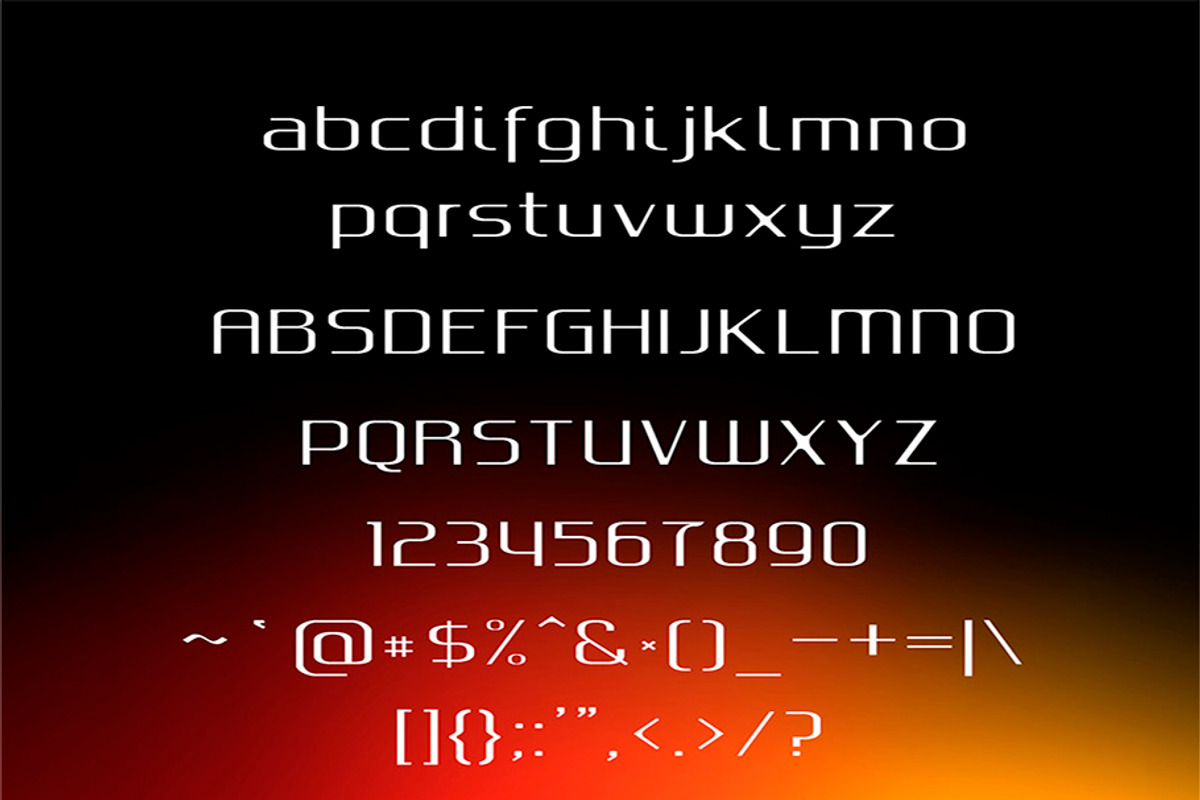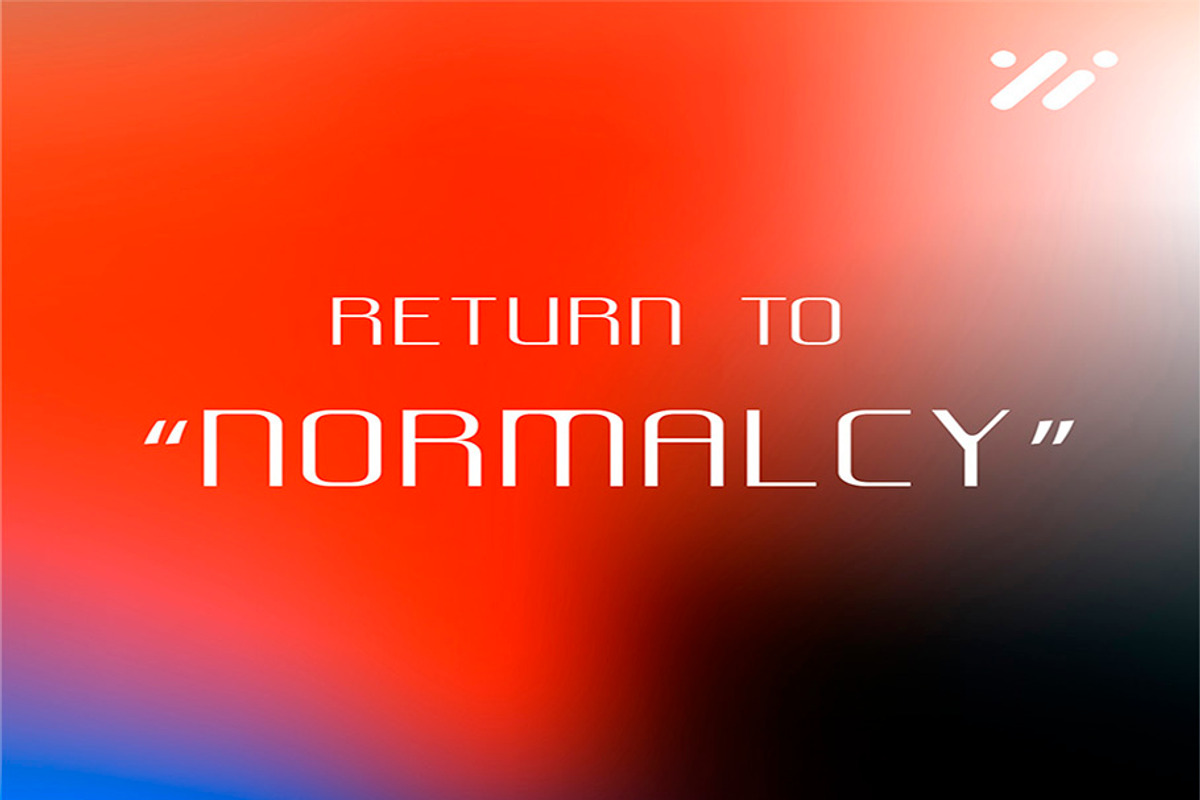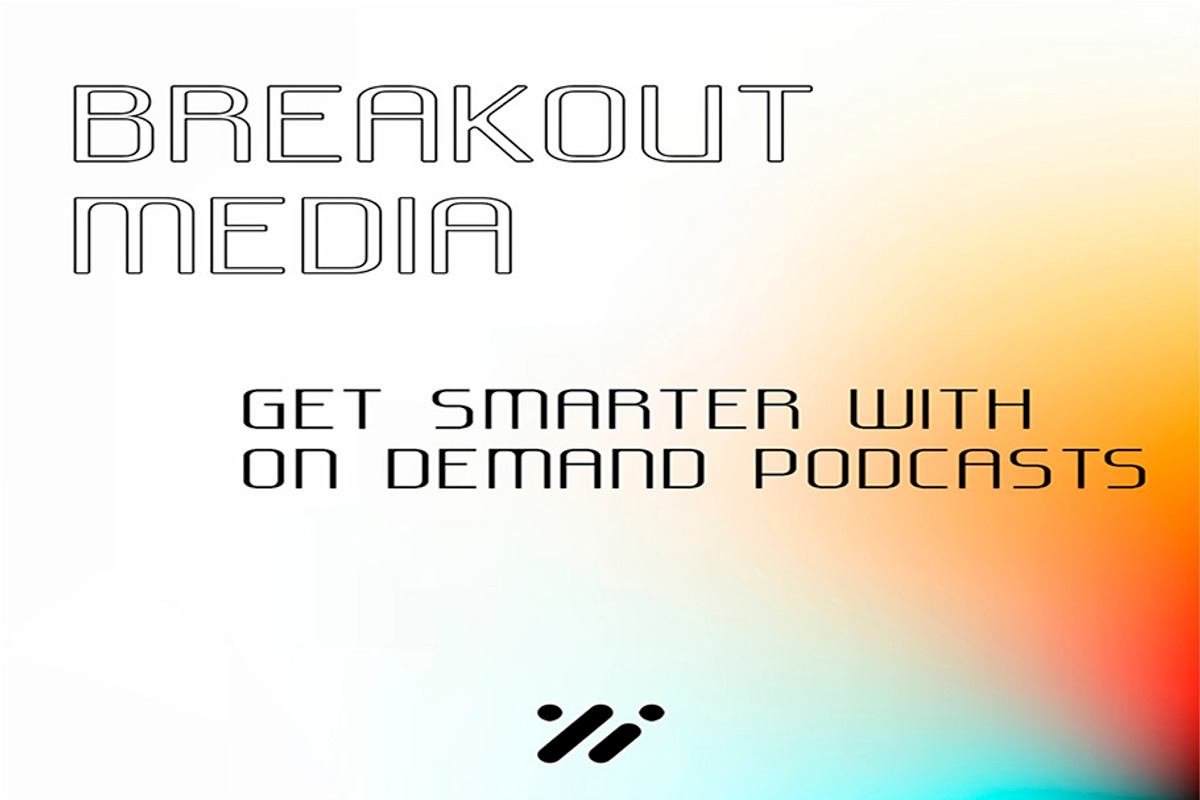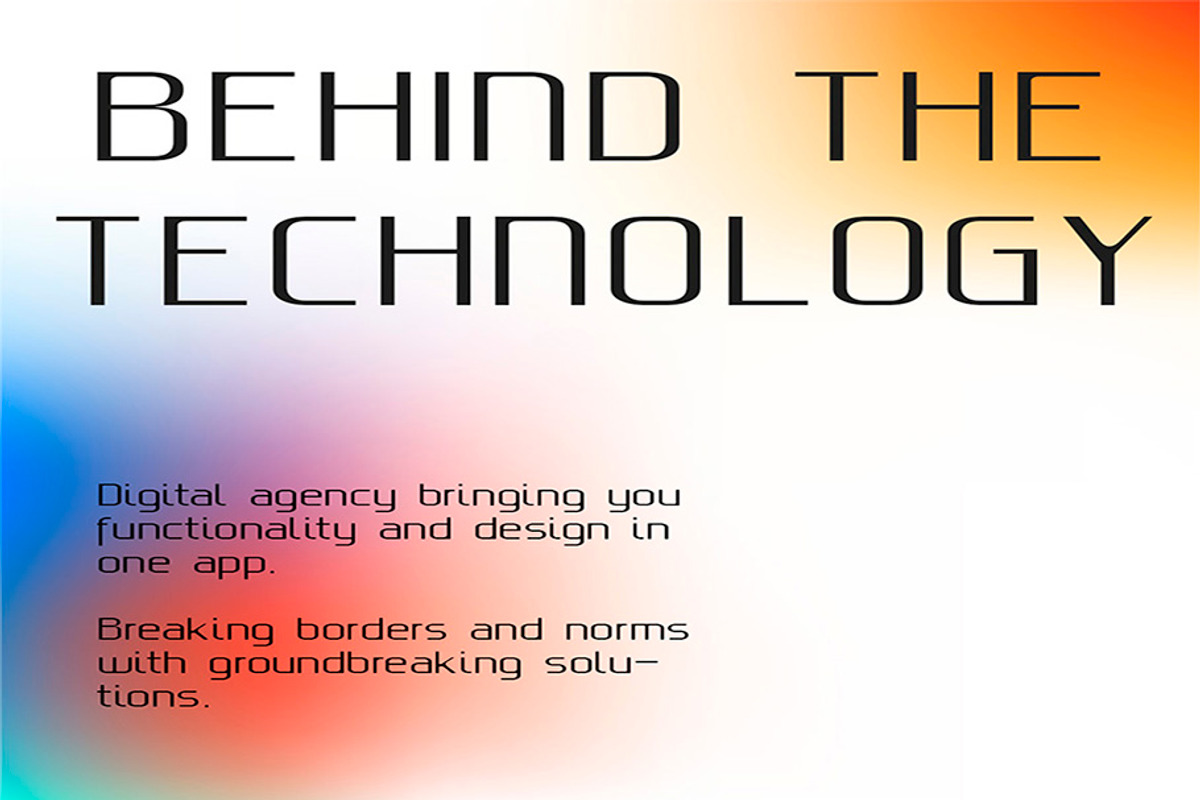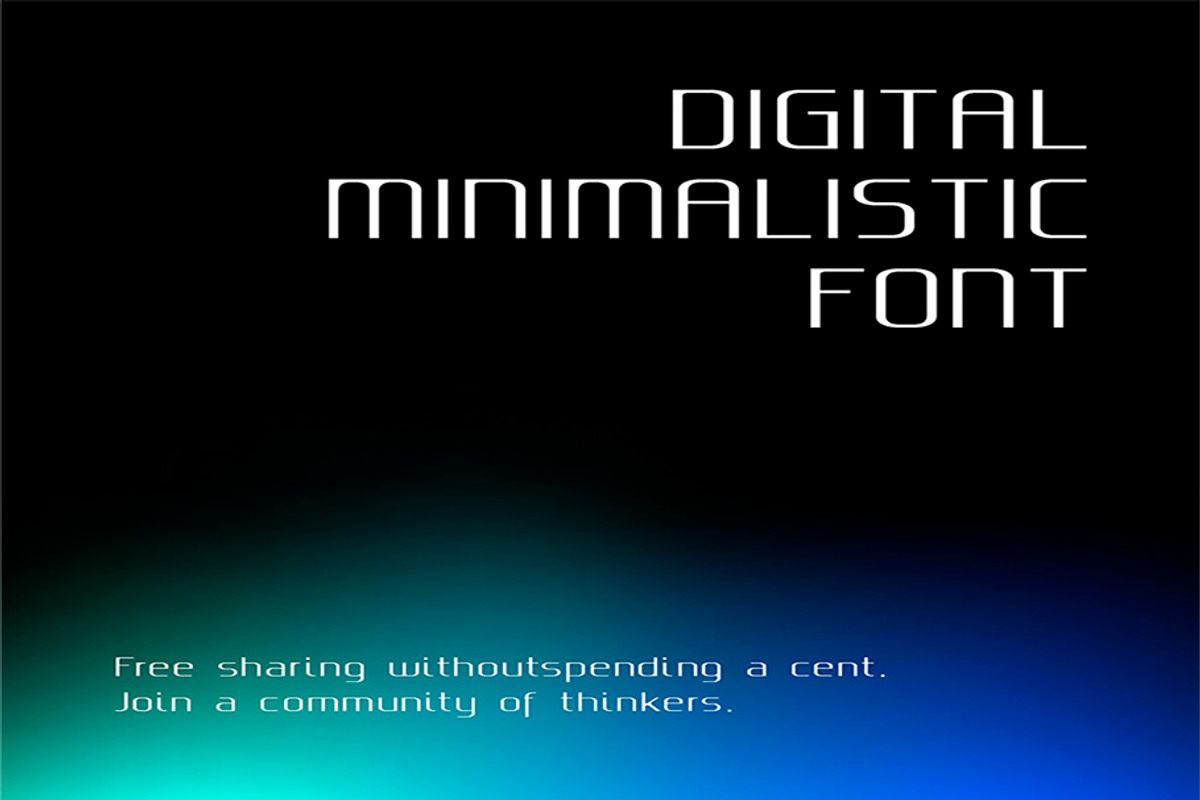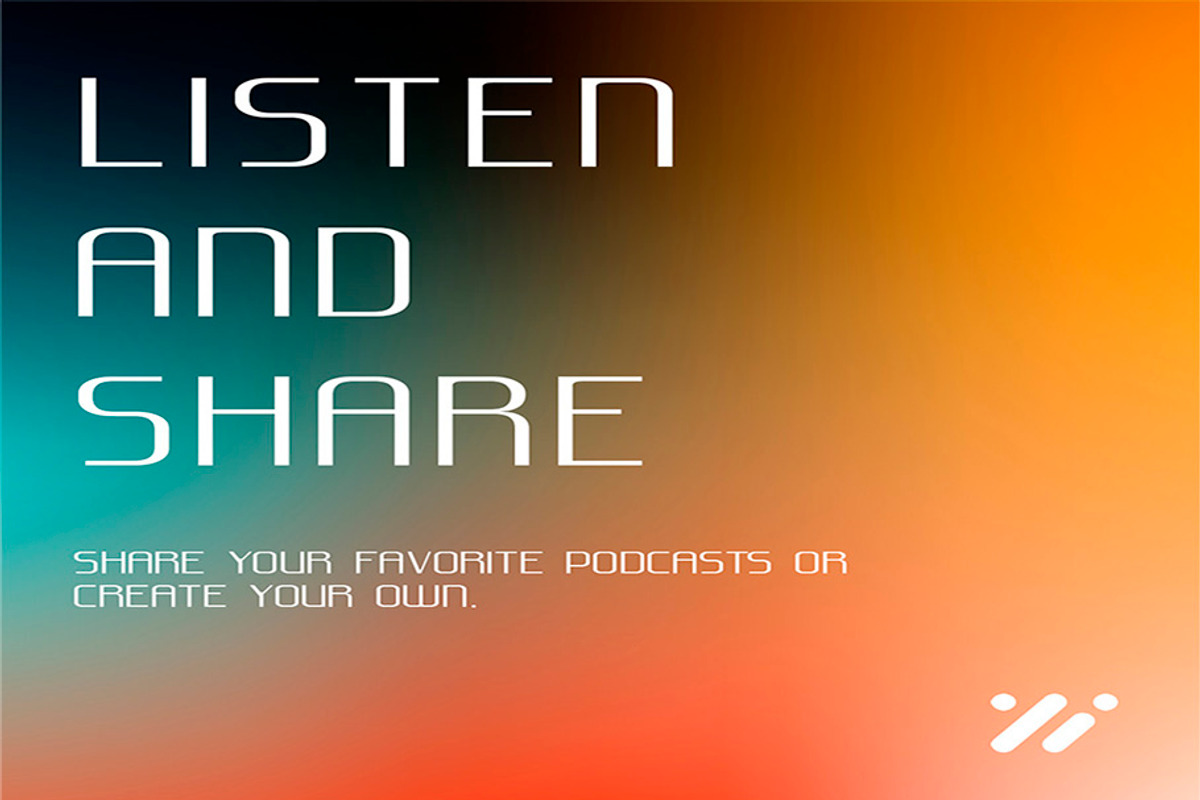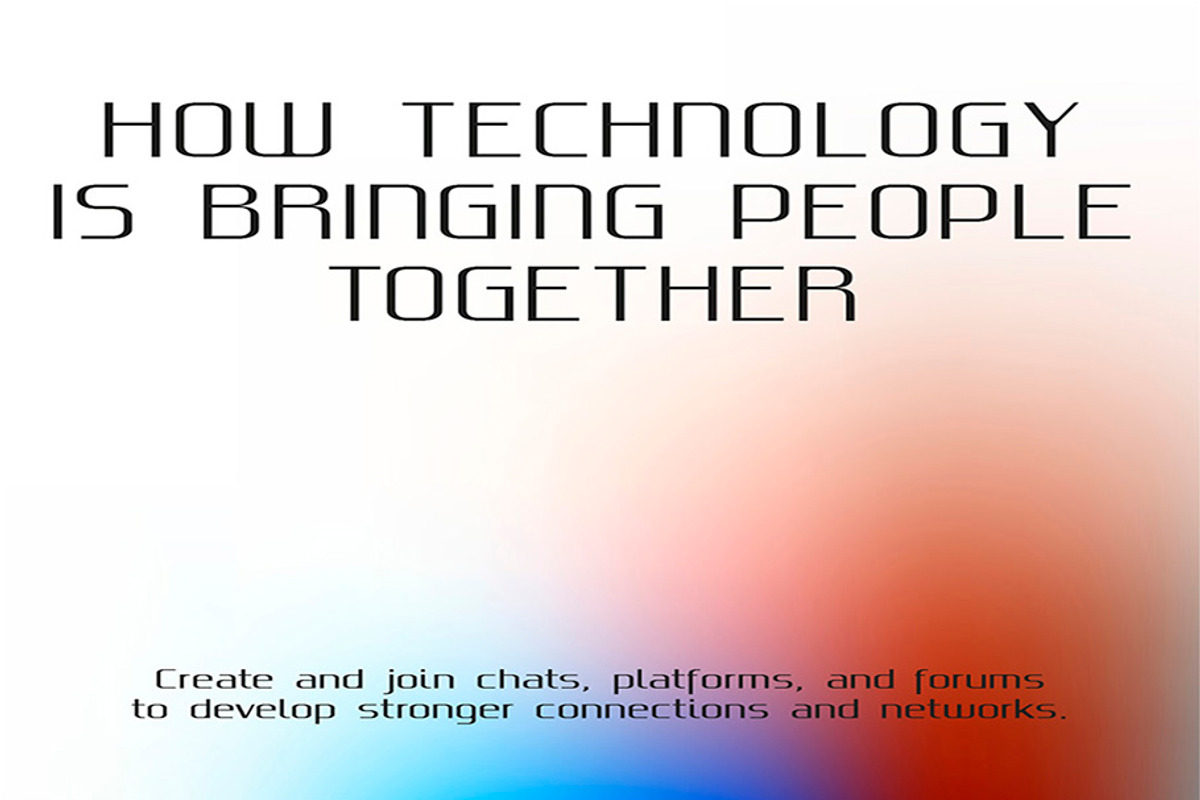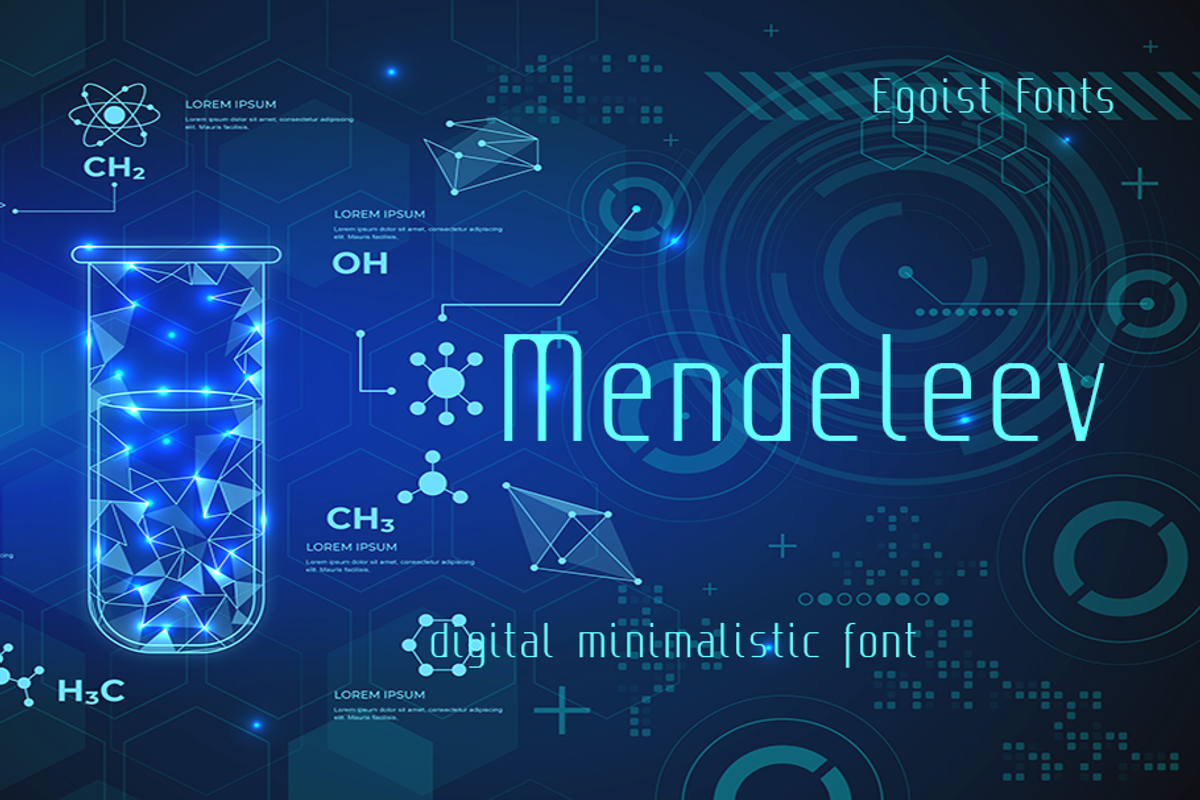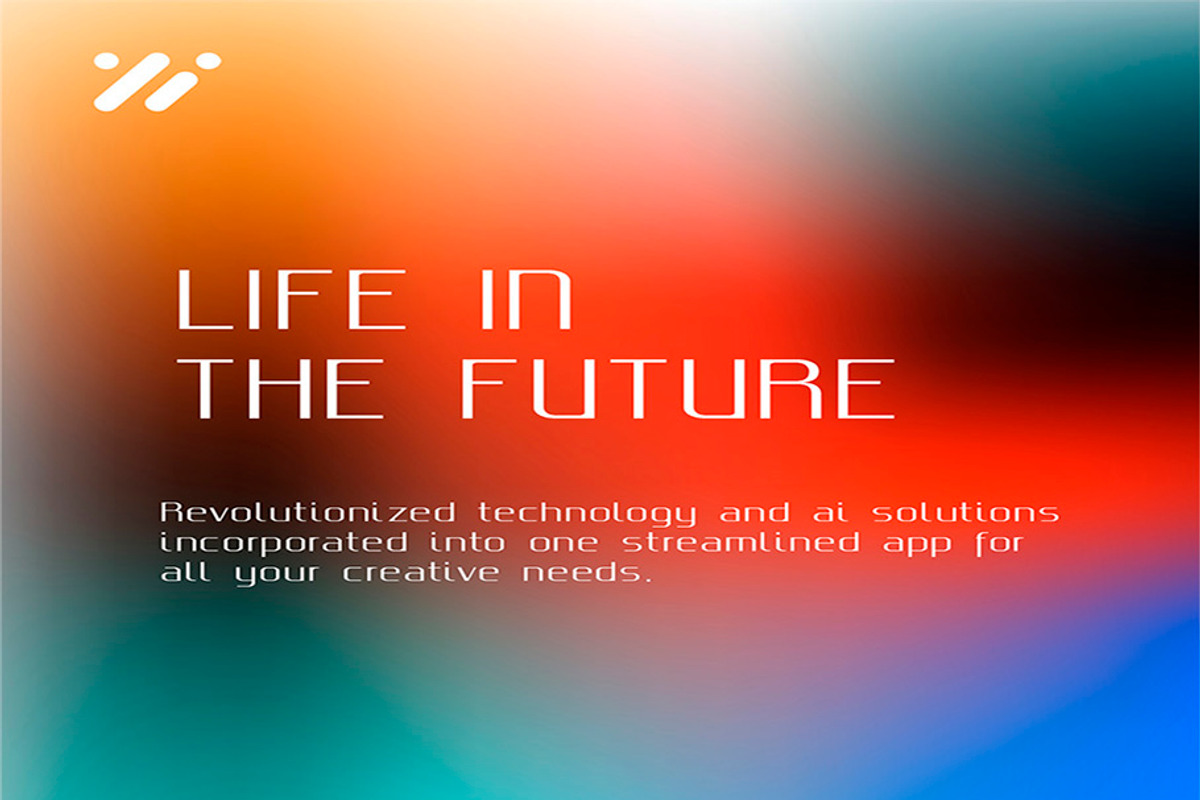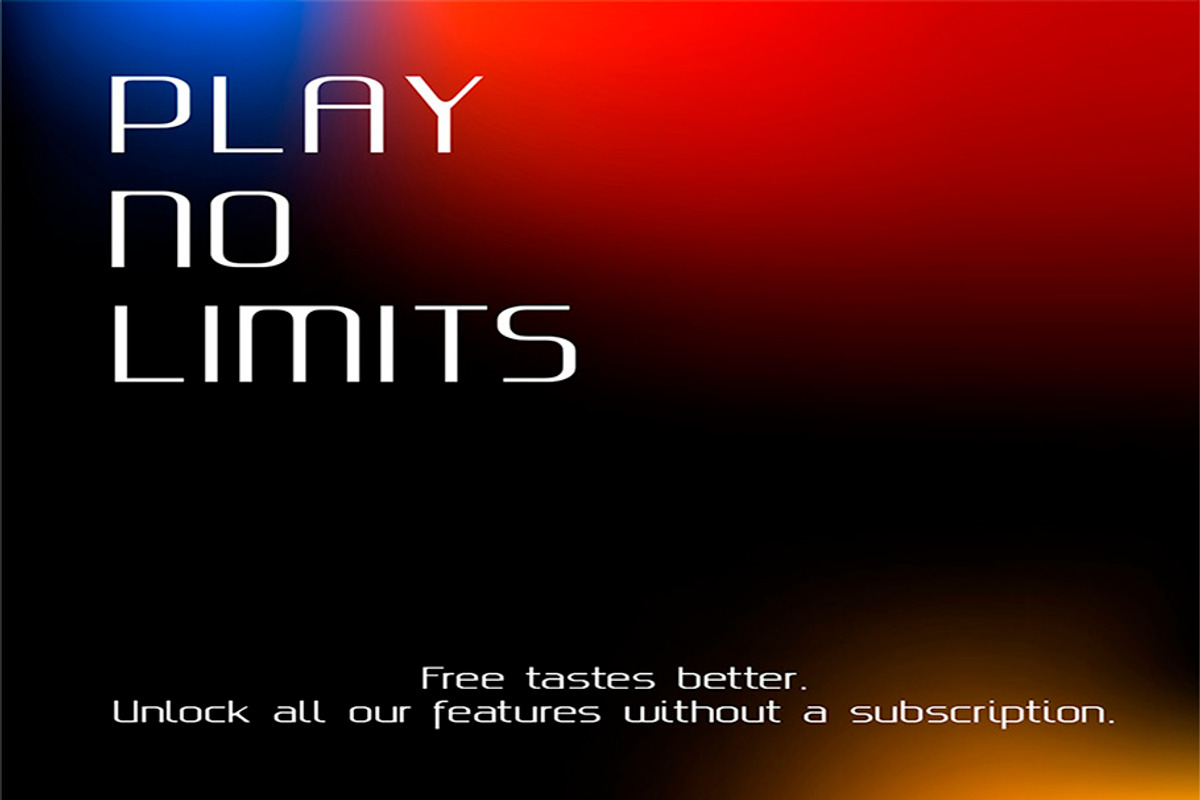
Digital Minimalistic
Digital minimalistic is a lovely elegant font for branding and logo design.This is perfect for branding and logo dessign. You will get classy, elegant, and certainly unique logos with this font.
Digital minimalistic is also included full set of:
- All uppercase and lowercase letters
- numerals
- punctuation